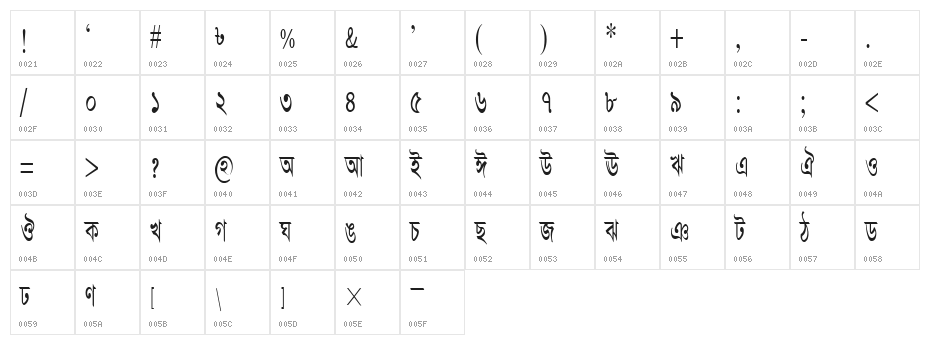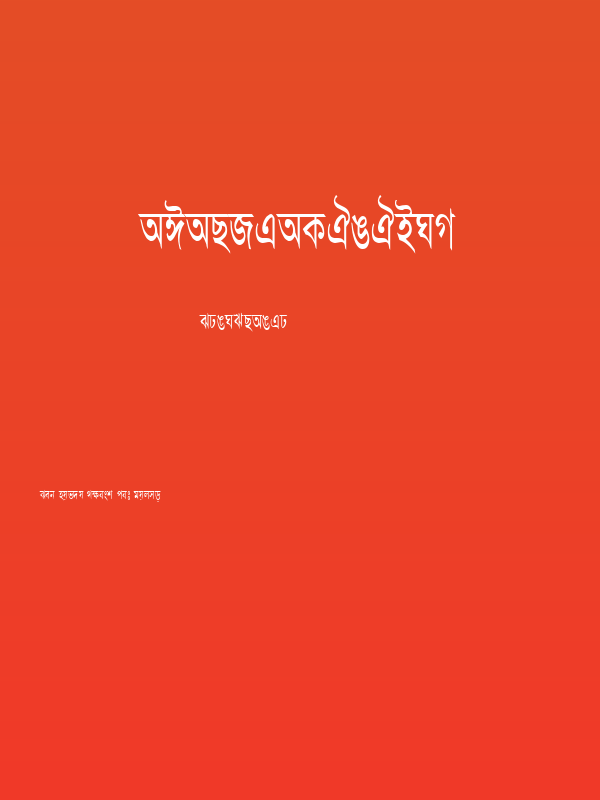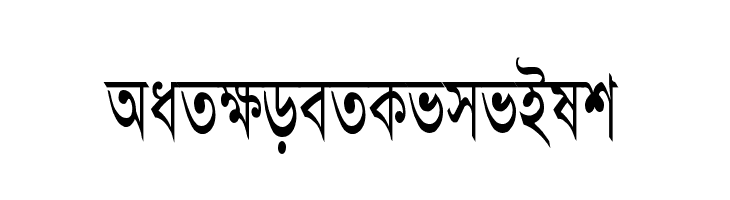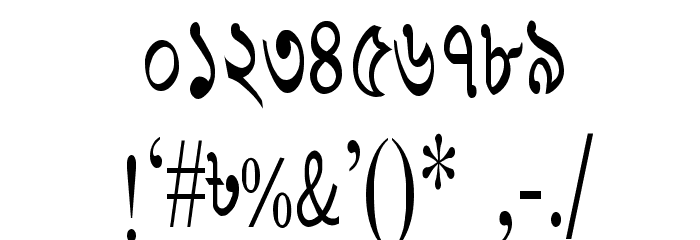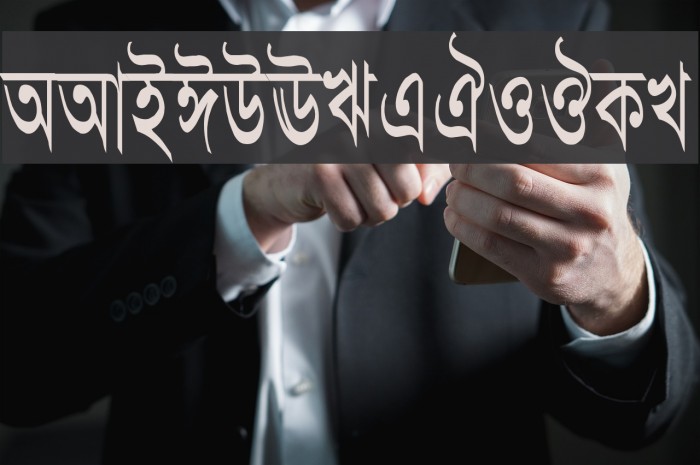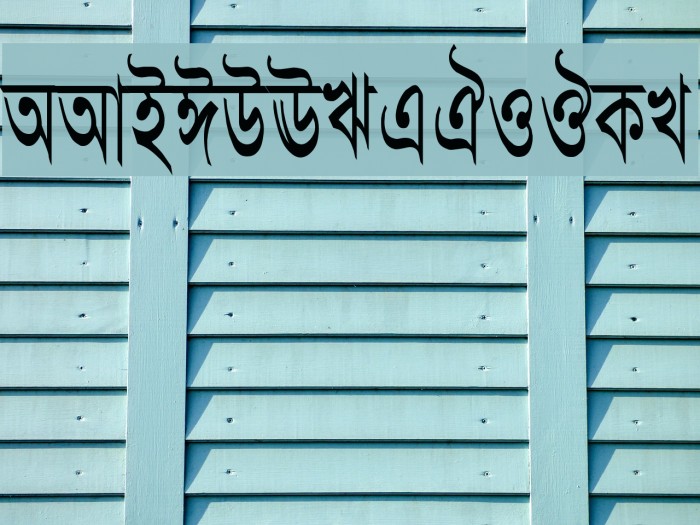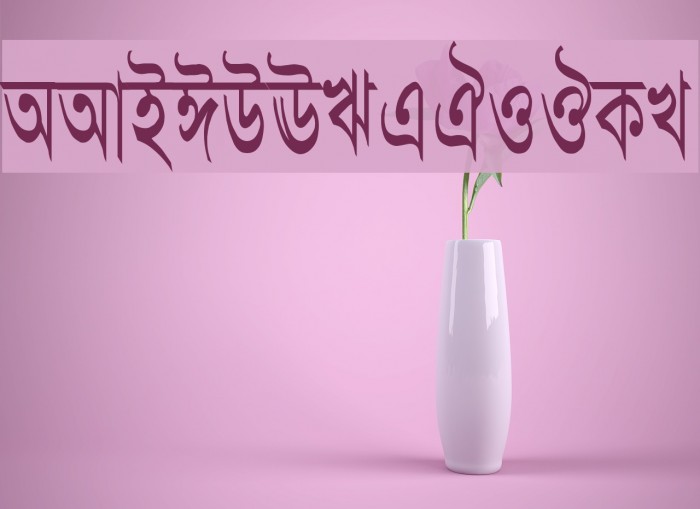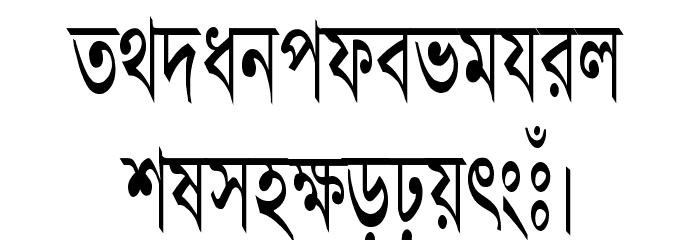
AdarshaLipiCon Font
AdarshaLipiCon Description
This font features a traditional script style with intricate detailing and elegant curves, typical of classical South Asian calligraphy. The characters are bold and have a high contrast between thick and thin strokes, giving them a distinctive and ornate appearance. The script is well-suited for decorative purposes, with its elaborate and flowing forms that convey a sense of cultural heritage and sophistication. The numerals and special characters maintain the same stylistic elements, ensuring consistency throughout the font. This design is ideal for projects that require a touch of tradition and elegance.
| Overall Style | Traditional |
| Use Case | Decorative text, cultural projects, invitations. |
| Proposed Projects | Ideal for cultural publications, invitations, posters, and any project requiring a traditional and elegant script. |